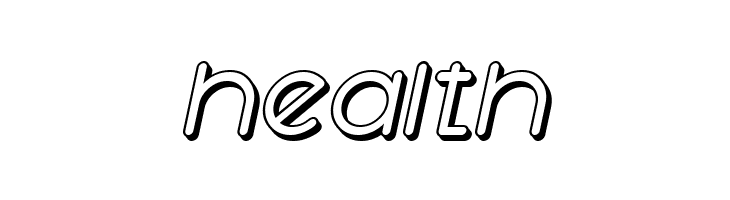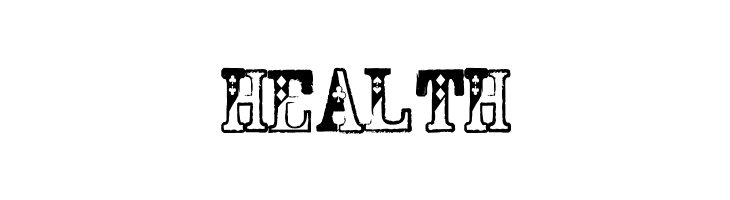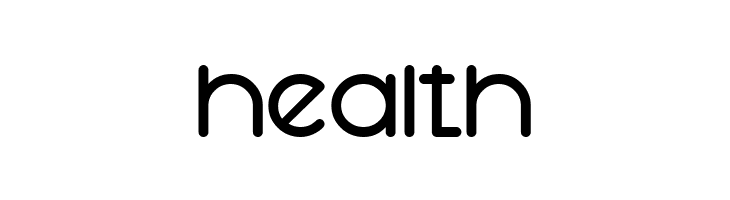
An elegant serif font with refined curves and subtle stroke contrast.
Bold, dynamic font with a slight slant and strong presence.
A bold, geometric font with a modern and uniform design.
A modern, distorted font with geometric shapes and dynamic lines.
A bold, decorative font with elegant curves and intricate detailing.
A playful, bold font with a distinctive shadow effect for added depth.
A playful and whimsical font with unique, irregular letterforms.
A bold, decorative font with a shadow effect for a three-dimensional look.
A bold, playful, hand-drawn font with a casual and friendly feel.
A playful, casual handwritten font with fluid strokes and a friendly appearance.
A modern, geometric font with a clean and condensed design.